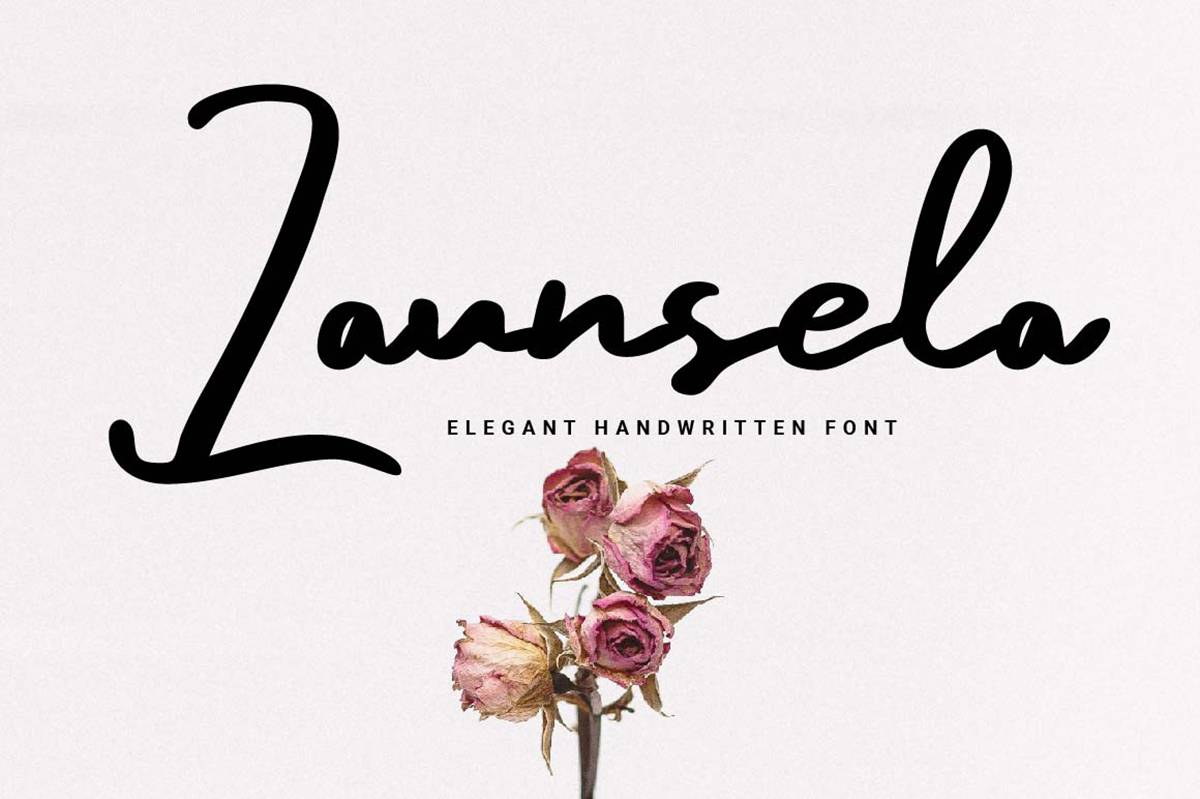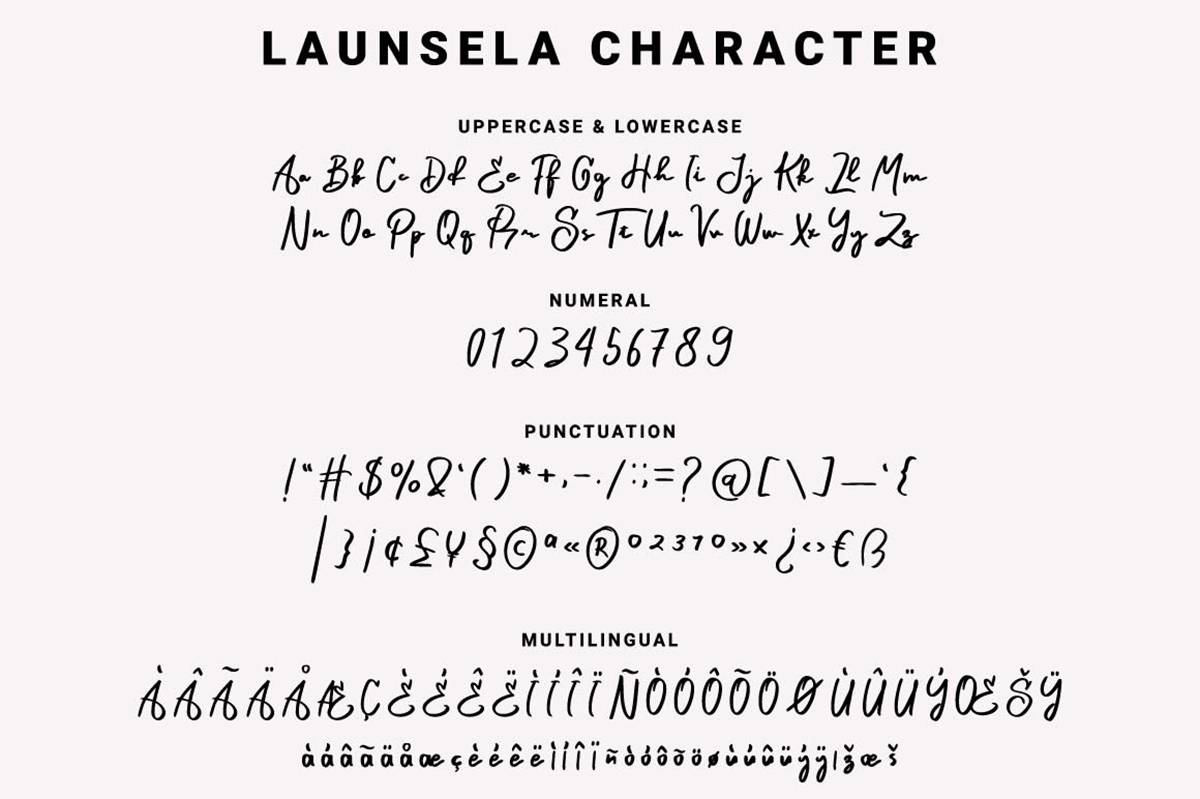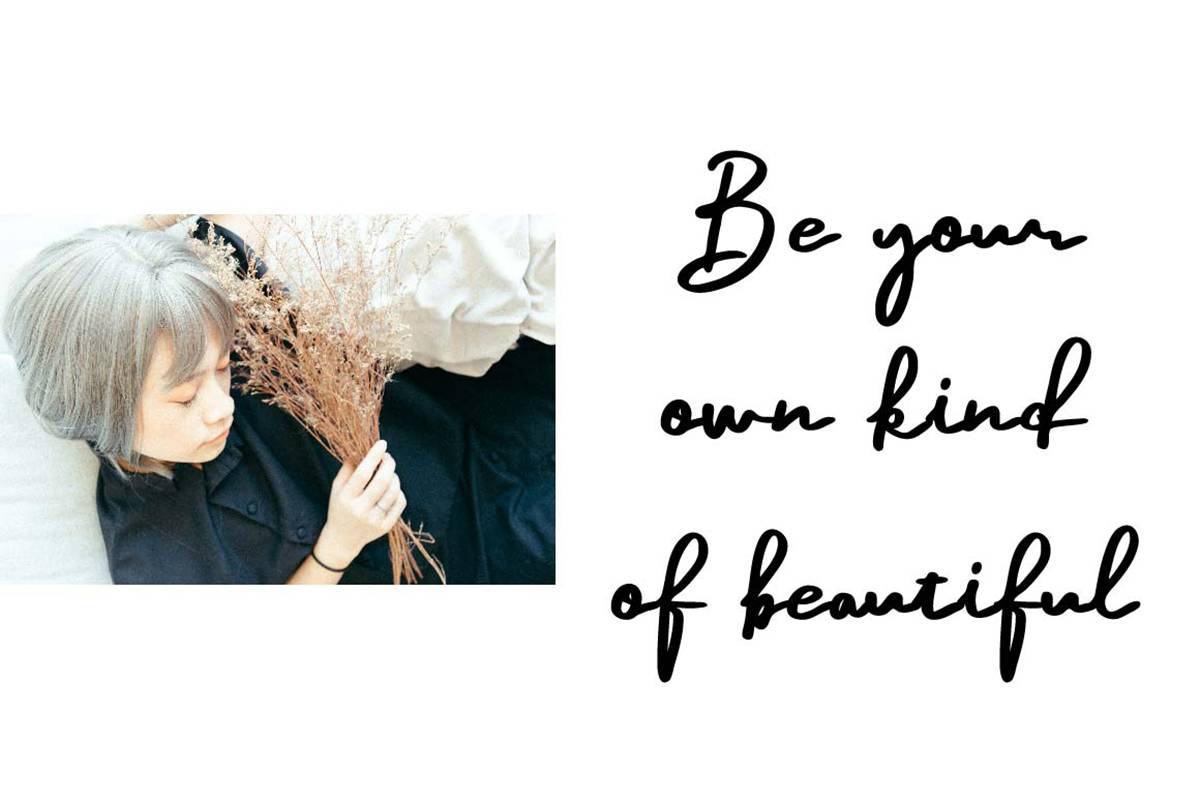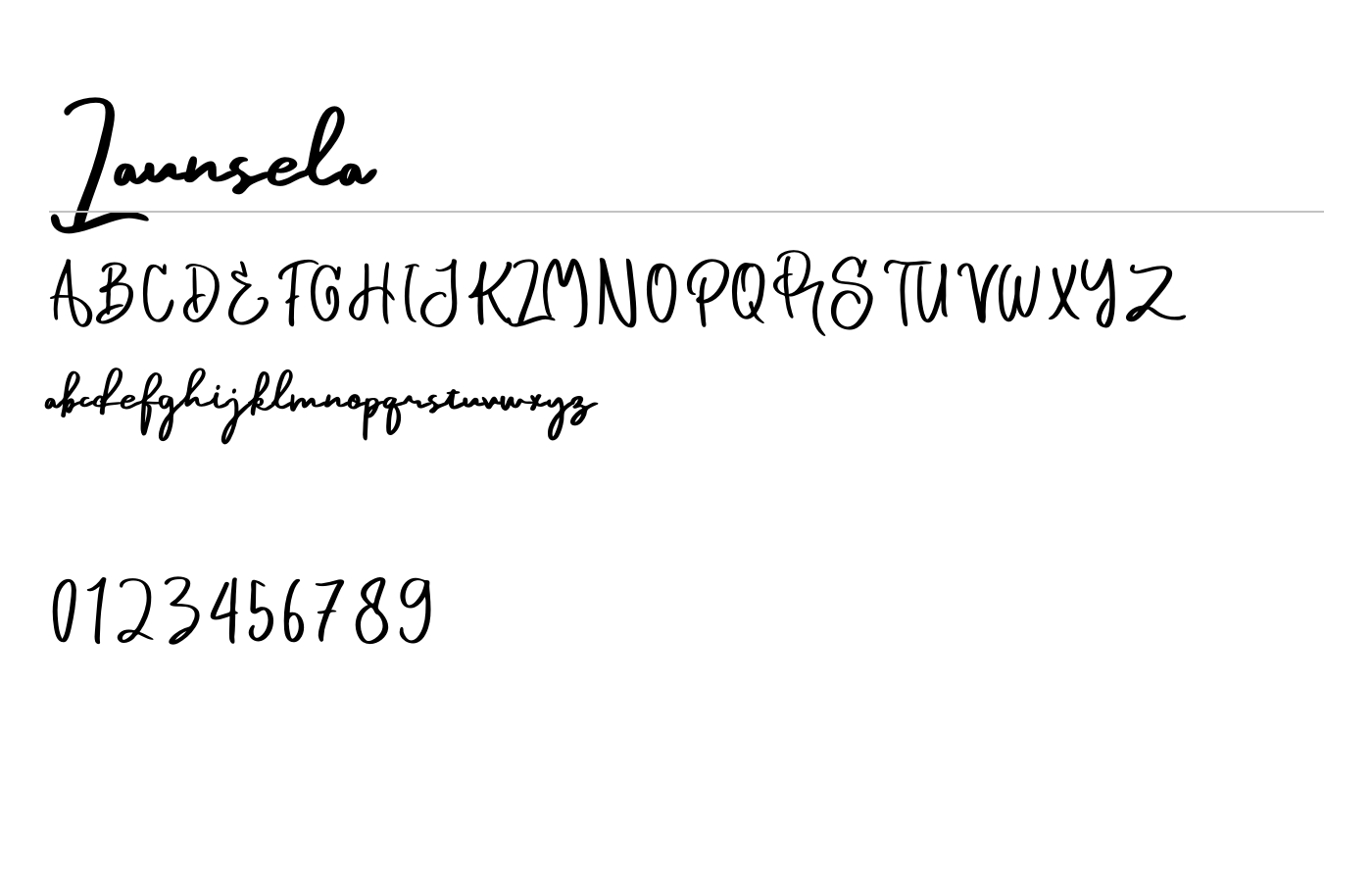
Launsela is a playful and elegant handwritten script font with a casual, artistic flair. Its light to medium weight, loose spacing, and lively letterforms create a friendly, approachable vibe that works beautifully for creative branding, invitations, and informal headlines. This font is ideal for projects that need a personal touch with a touch of sophistication.
Launsela Font
About Launsela Font
| Font family | Launsela Font |
| Designer | Prio Nurokhim Aji |